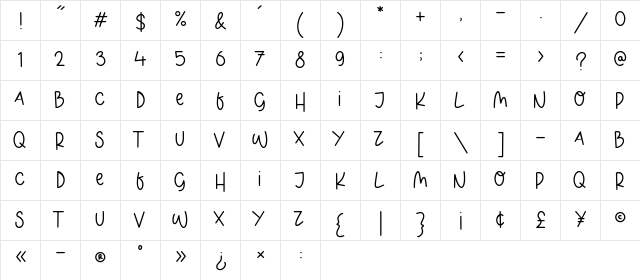
BLINKY SEASON Regular
| Designer | Balpirick Studio |
Design Context for BLINKY SEASON Typeface
BLINKY SEASON is a composed and adaptable typeface that performs quietly and consistently across a wide range of design contexts.